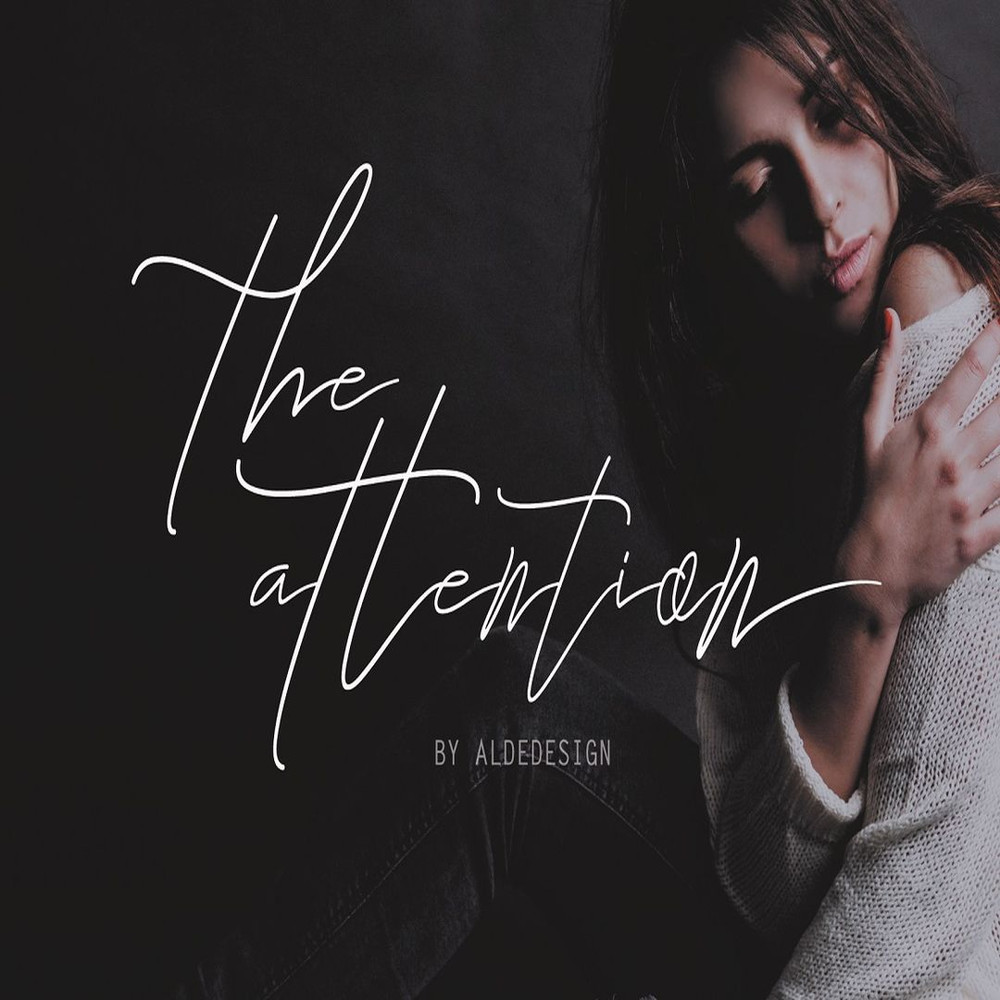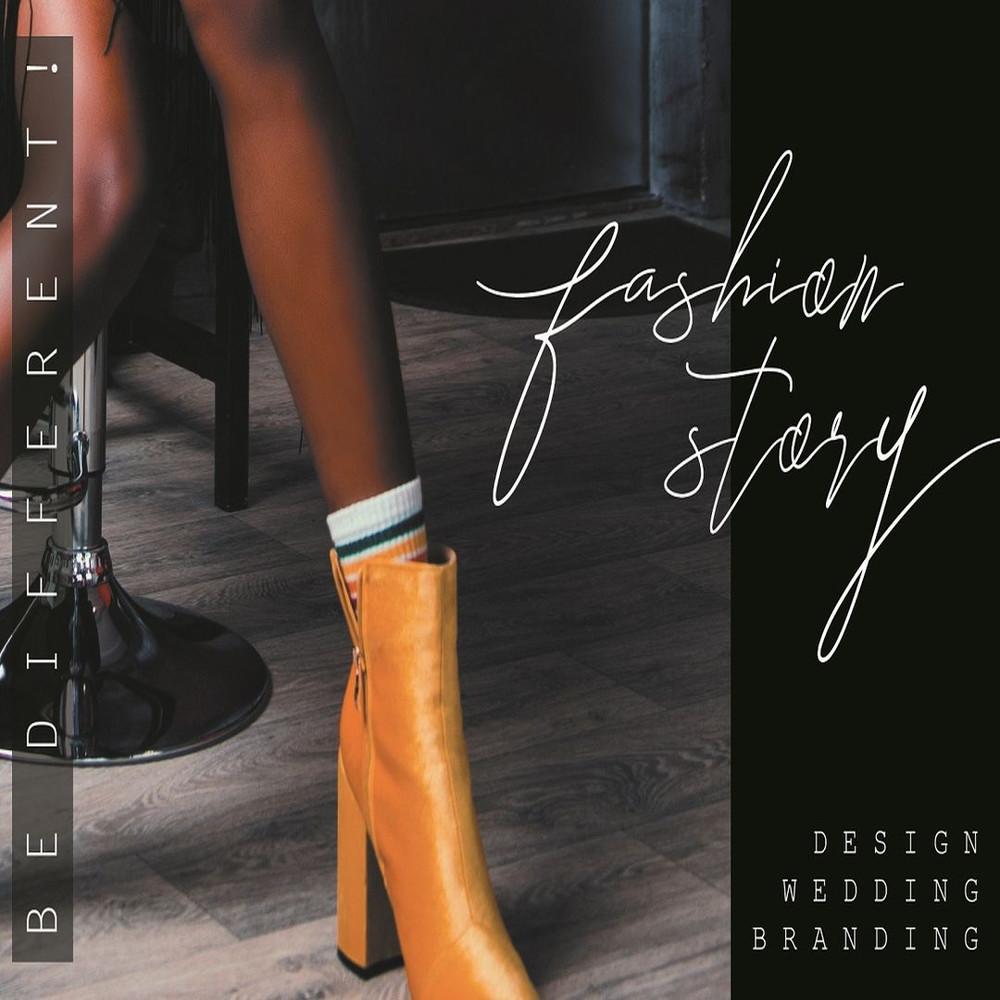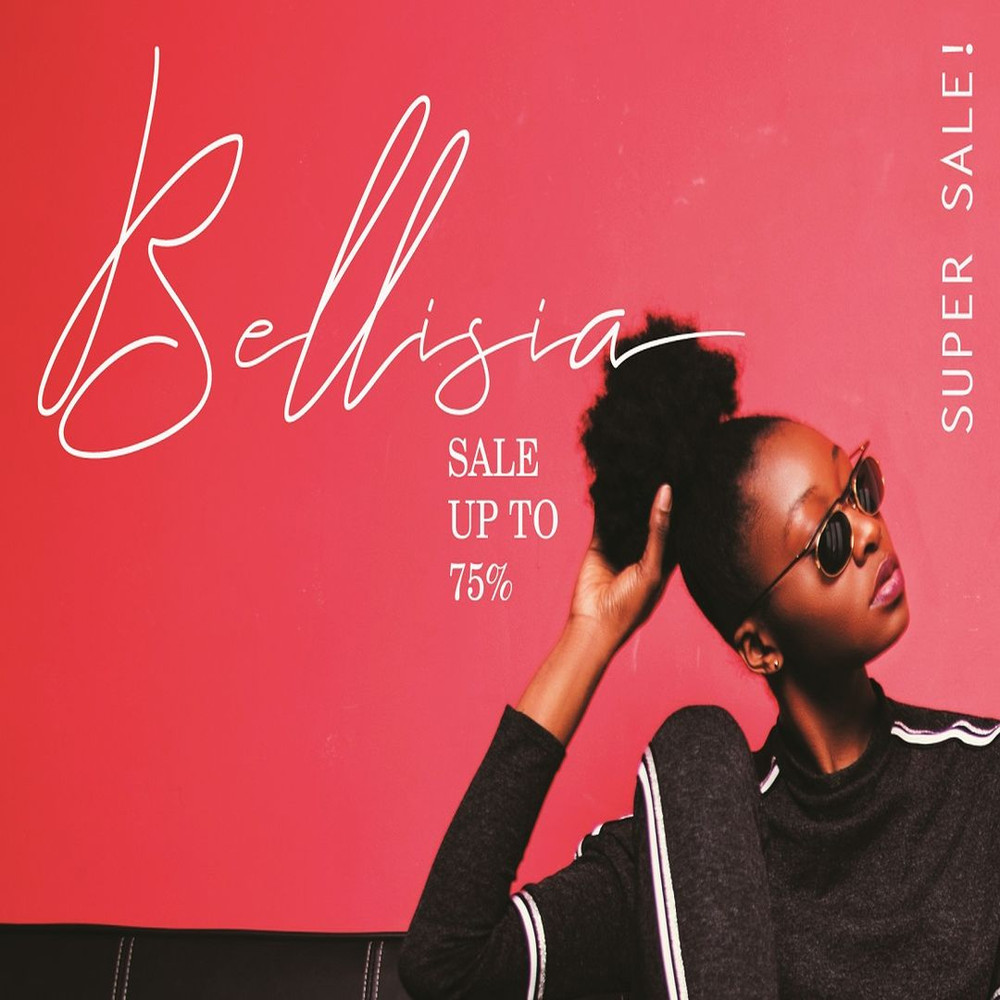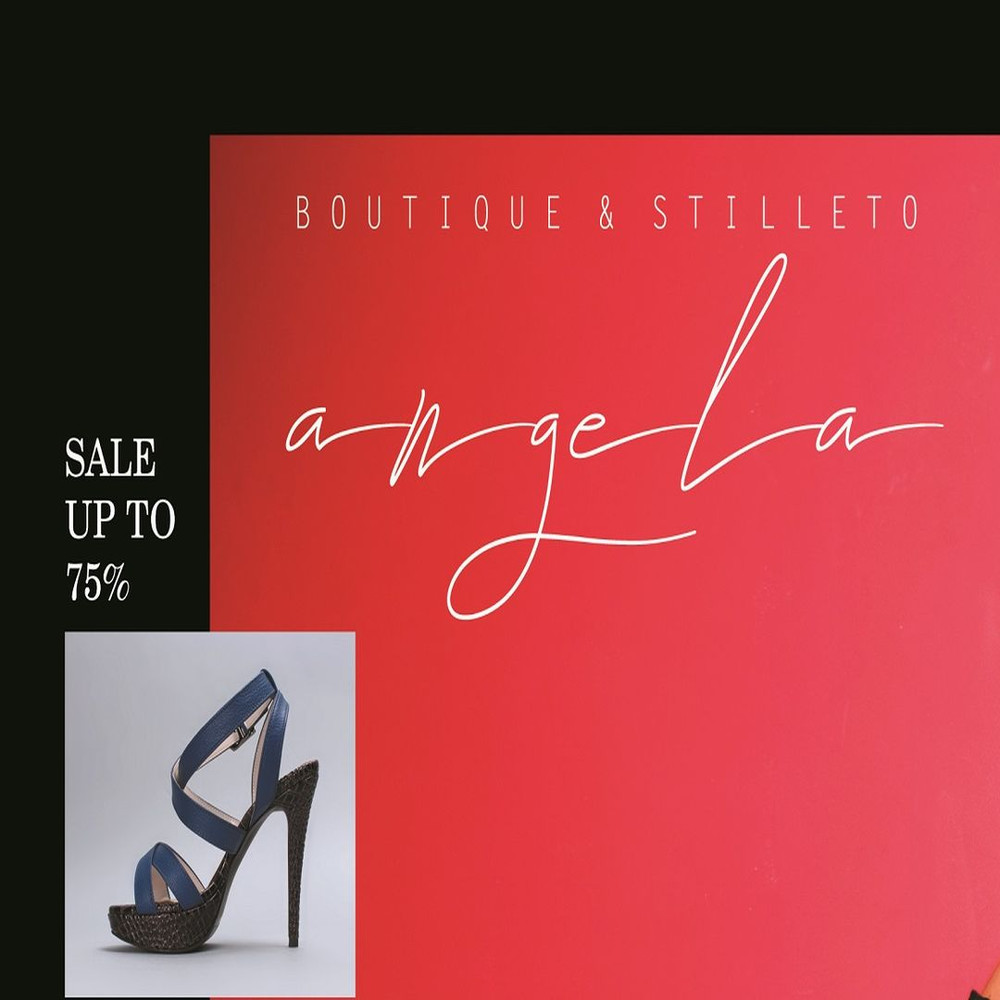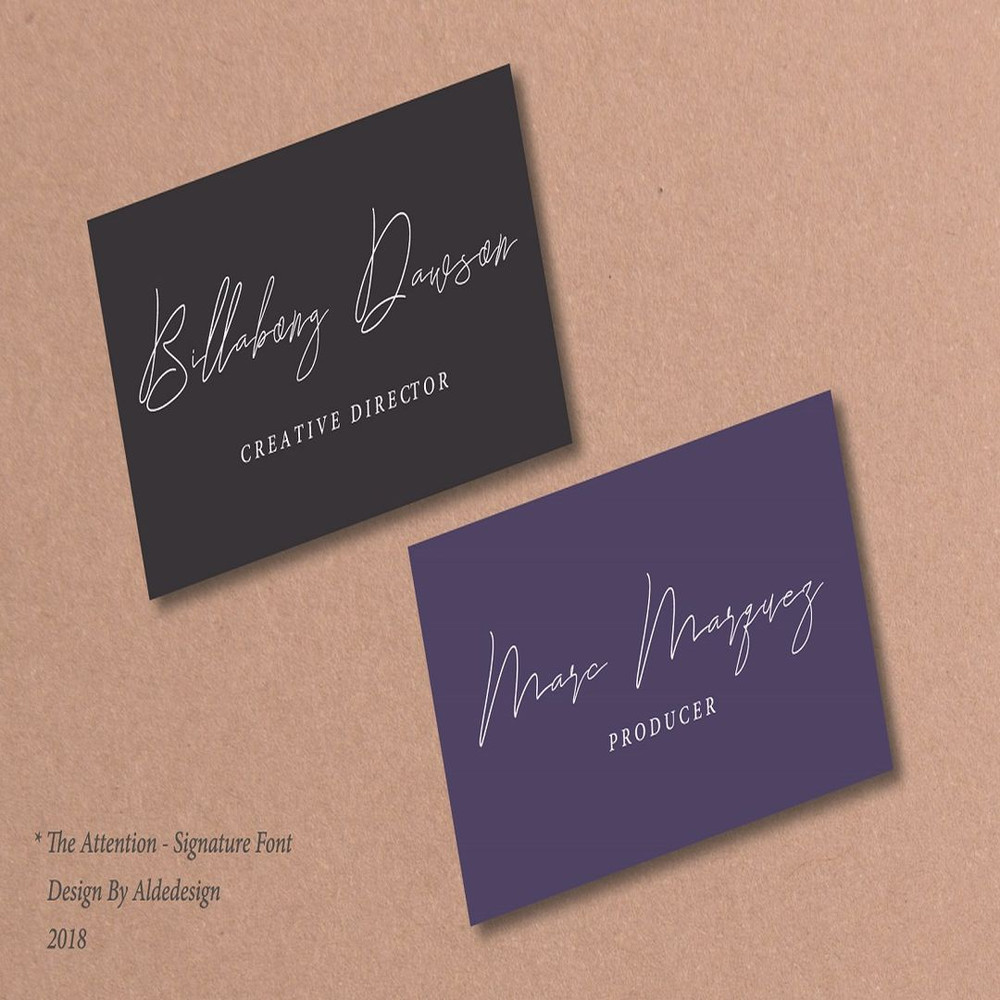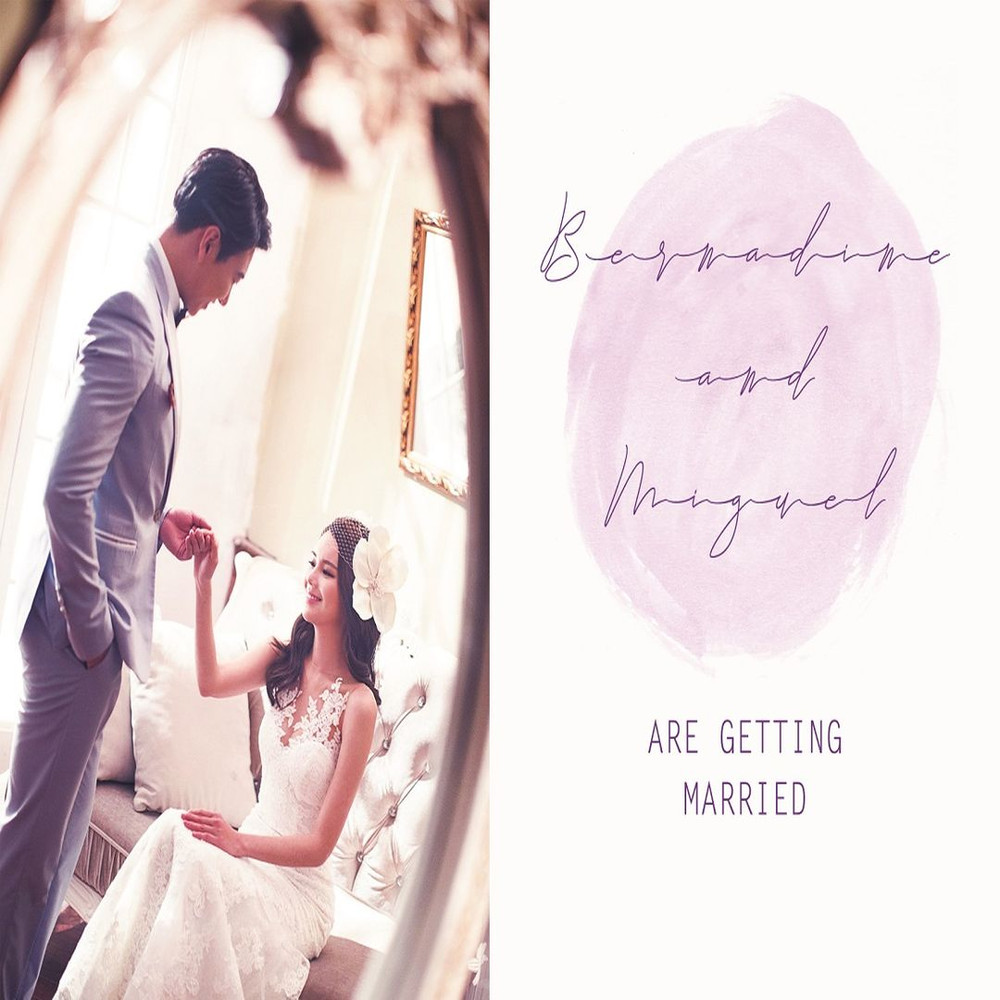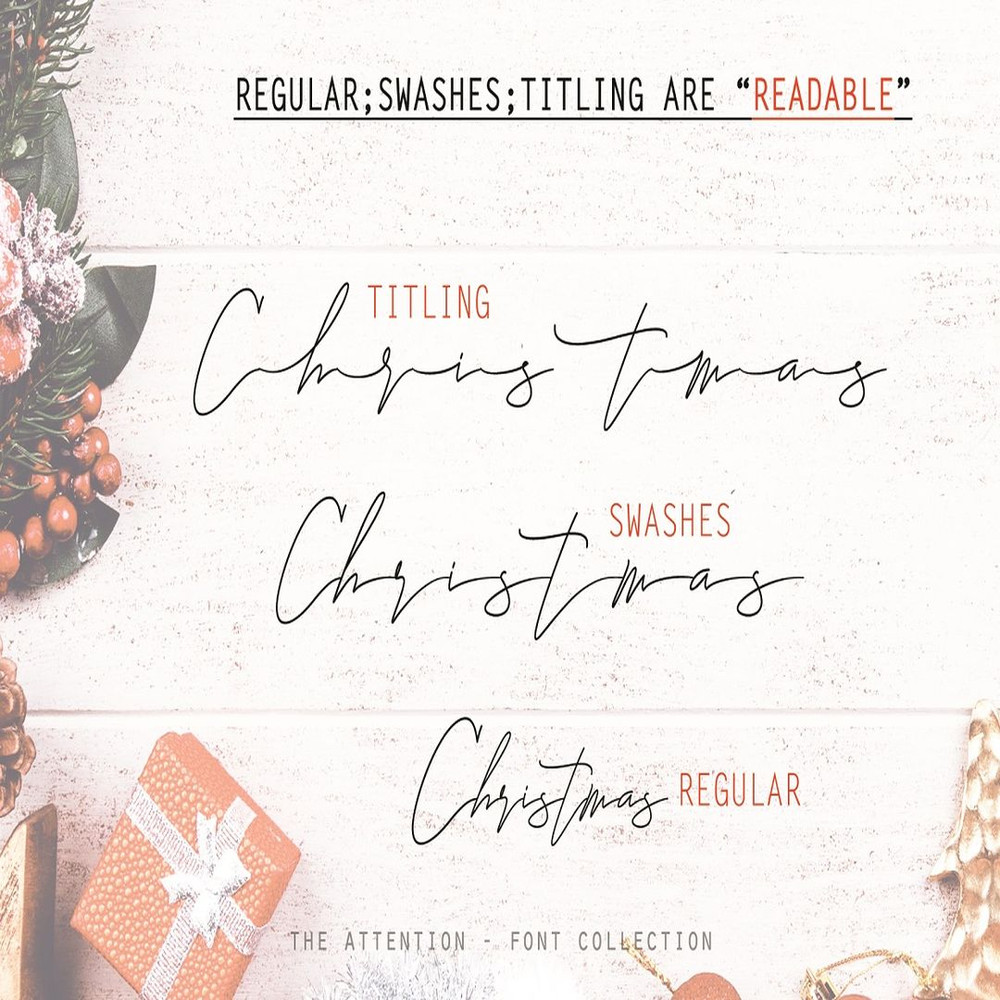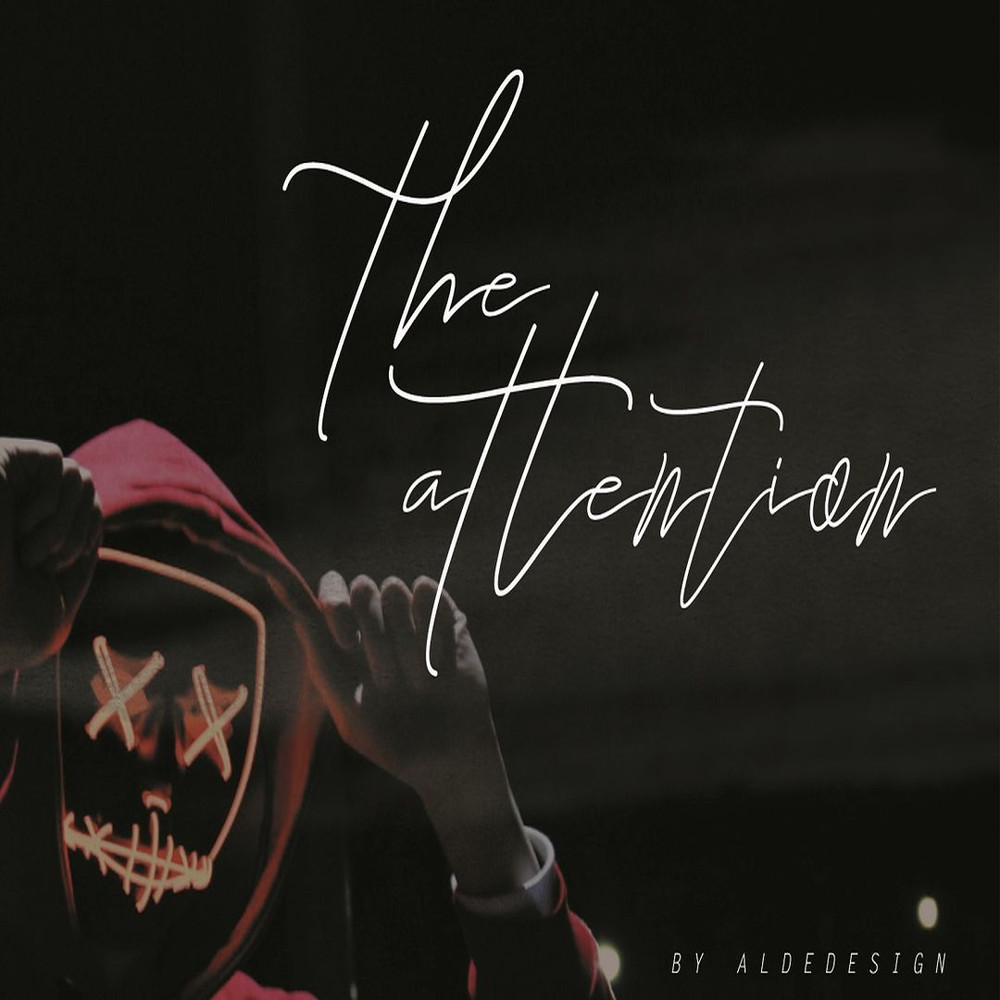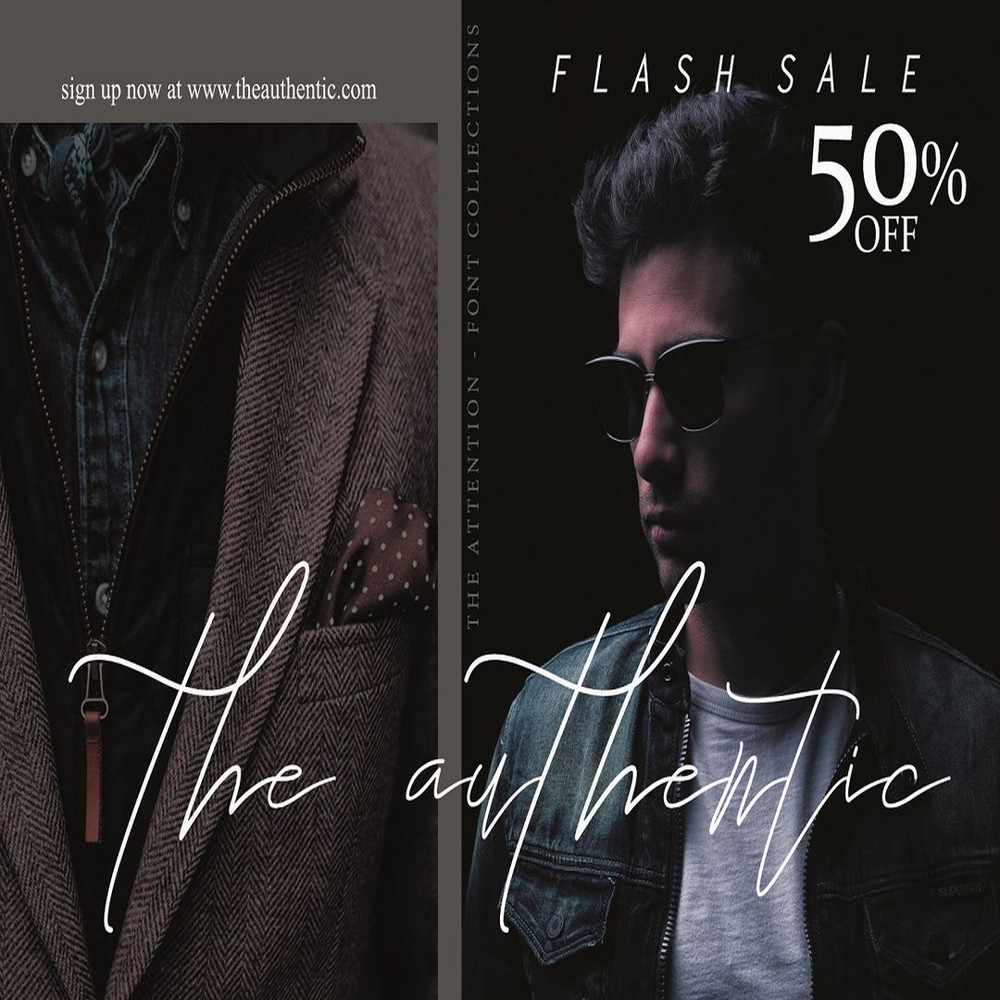
The Attention is a stylish unique signature font and easy to remember.
It’s great for unique branding, photo overlays, watermark, business card, invitations, etc.
This font is easy to use, the basis if this unique font is it’s simplicity.